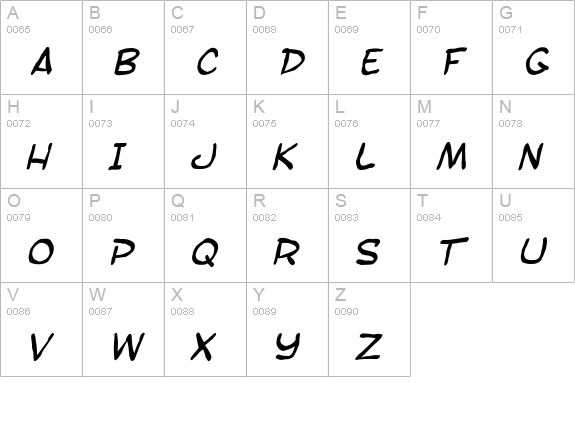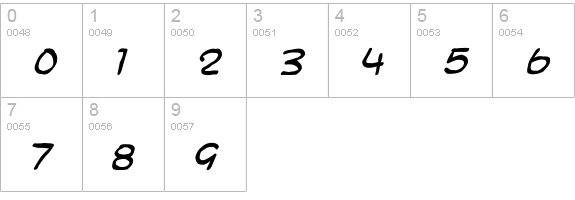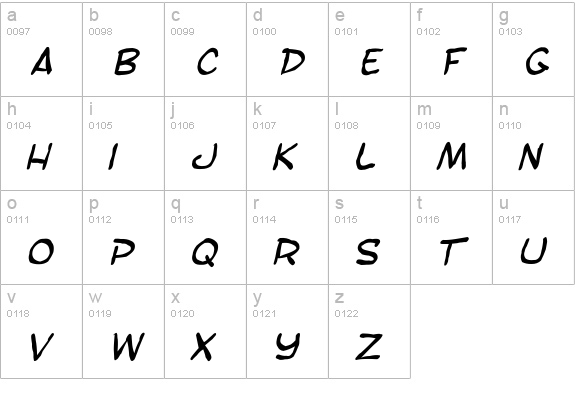
SF Toontime Blotch Italic Font Details
SF Toontime Blotch Italic is a distinctive, italic variant in the SF typeface family \xE2\x80\x94 well suited to design and typography projects.
Introducing SF Toontime Blotch Italic font, a playful and whimsical typeface that adds a touch of animated charm to any project. This font effortlessly captures the essence of hand-drawn cartoons with its quirky and irregular letterforms. With its italic style, SF Toontime Blotch Italic exudes a sense of movement and excitement, making it perfect for designs that aim to captivate and engage. The unique and imaginative design of SF Toontime Blotch Italic font makes it ideal for a wide range of creative projects. Whether you're creating eye-catching titles for a children's book, designing fun and vibrant posters, or adding a touch of fun to your digital artwork, this font is sure to bring your ideas to life with its playful personality. One of the most exciting aspects of SF Toontime Blotch Italic font is that it is freely available to download at FontsMarket.com. This means that you can easily access and enjoy this delightful typeface without any cost or hassle. Its availability as a free font allows designers, artists, and creatives of all kinds to explore and experiment with its charming and animated aesthetic, without any limitations. So why wait? Dive into the world of SF Toontime Blotch Italic font and unleash your creativity with this whimsical and captivating typeface. Download it for free at FontsMarket.com and let your imagination run wild as you bring your designs to life with its playful and animated charm.